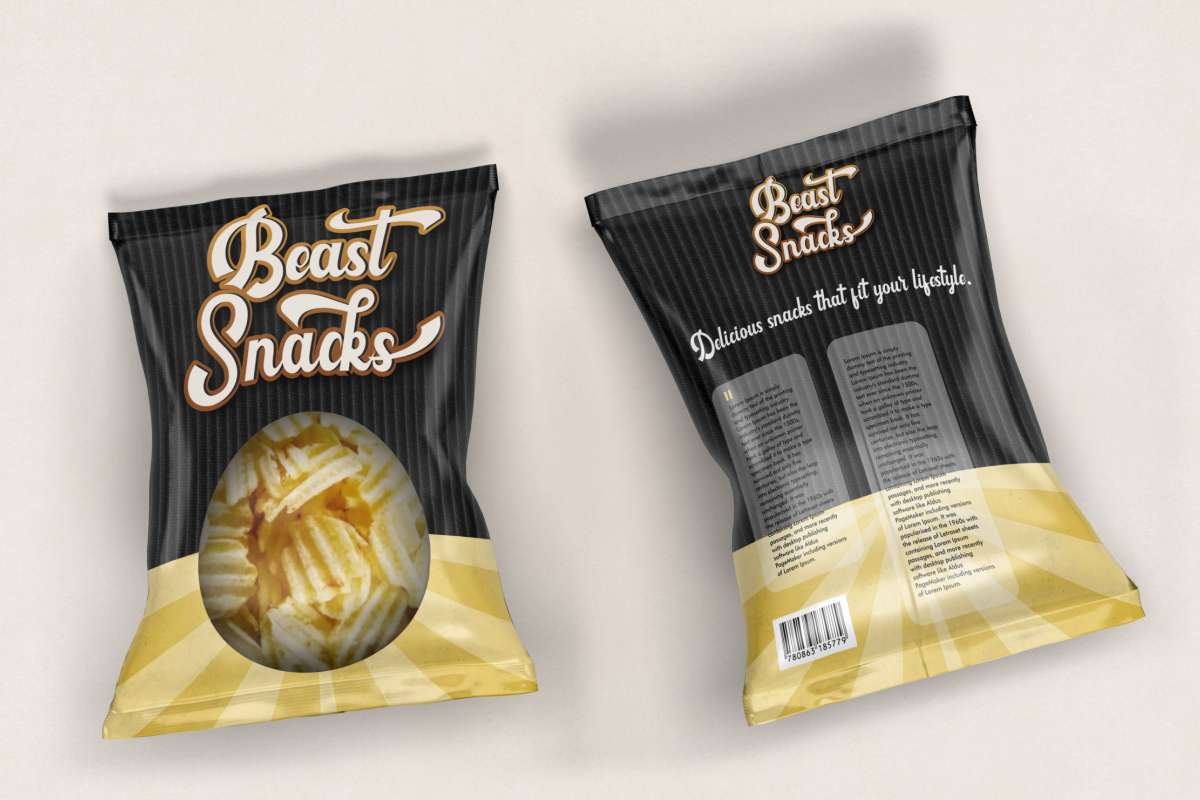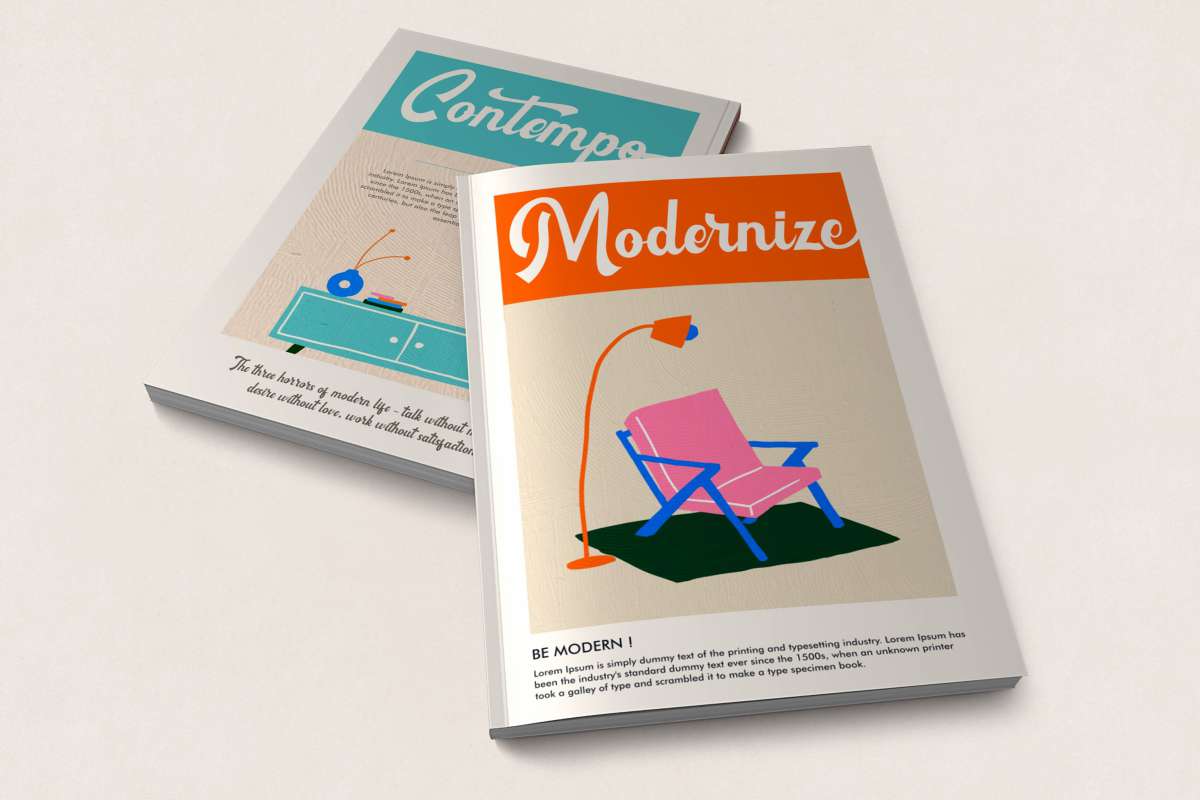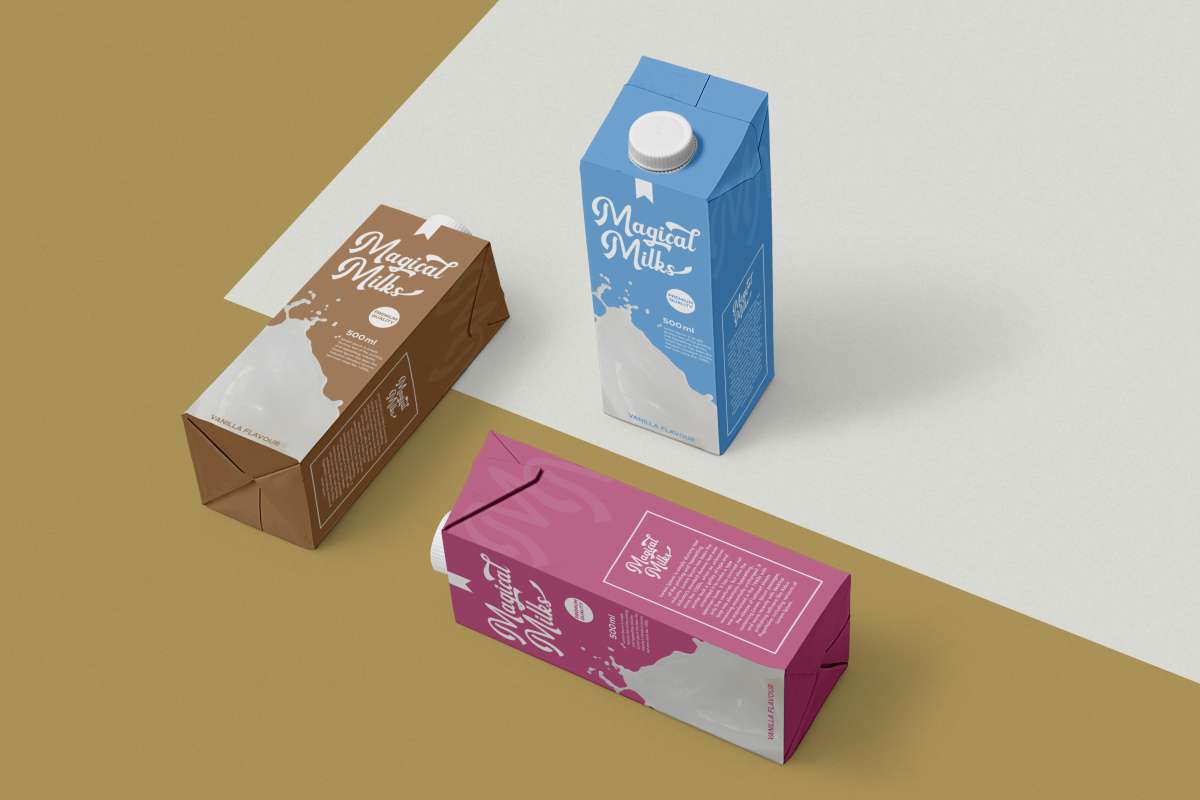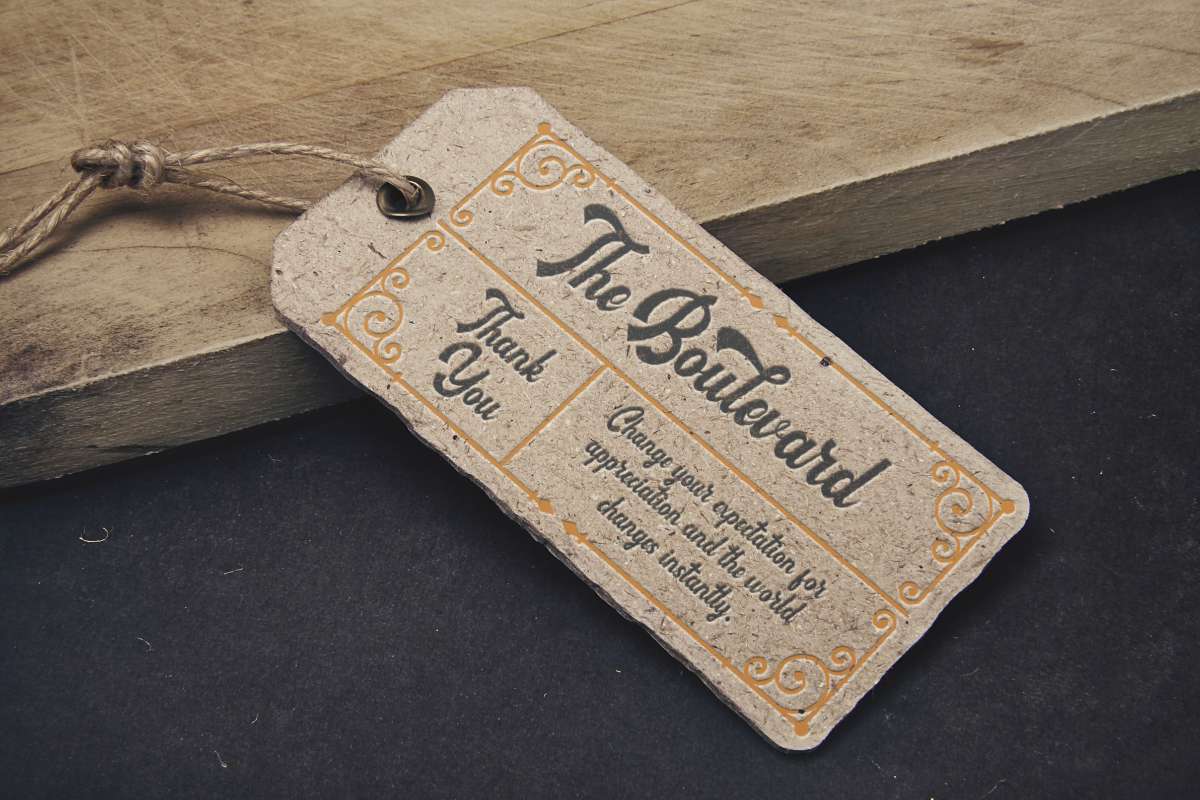
Brownsburg Font
Brownsburg Script Font
This font was handcrafted for any your special projects including : logo branding, invitation, products packaging, signage, stationery, social media posts, title or and any projects that need bold retro style. The theme/industries of this font is Clothing, Food & Beverage, Games, Homeware, Magazine, Movie, Music, Video etc
Brownsburg Font comes with a full set of upper and lower case letters, numerals, a large range of punctuation to make it blend. The completeness of various alternatives and ligatures is also added to this font, making it a unique retro-style font that is different.